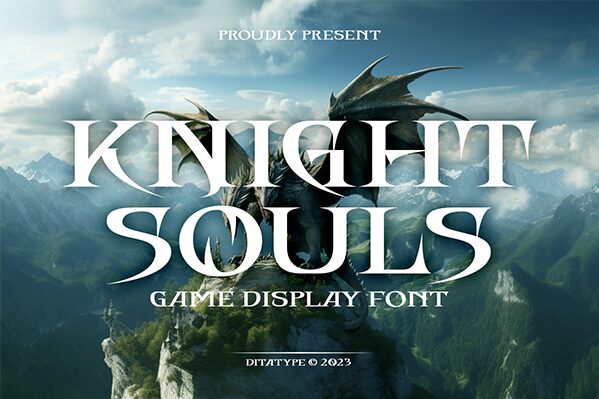
Knight Souls font by Ditatype is a gothic, modern, and expanded font available for free download. Its elegant and ornamental style is both inspired by medieval influences and comes with a contemporary twist. The typeface mixes the visual vibe of historical times with decorative flair that stands out even in today’s digitally driven world.
Knight Souls works nicely in eye-catching posters, headline titles, menus, apparel designs like T-shirts or hoodies as well as in book covers. Use it also for social media posts to attract engagement or use it on postcards and invitations to leave a positive impact on those reading them.